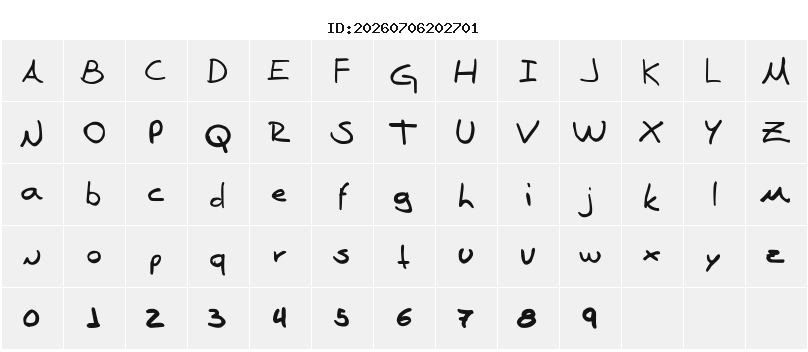
Denise Sans Preview
• Font Name: Denise Sans
• Full Font Name: Denise Sans
• Designer: Renato Michalischen / Luis Piazza
• Description: Designed by Renato Michalischen / Luis Piazza
About Denise Sans.ttf
Denise Sans.ttf is a modern, elegant sans-serif font designed for ultimate readability and visual harmony. Perfect for branding, headlines, web design, and print materials.